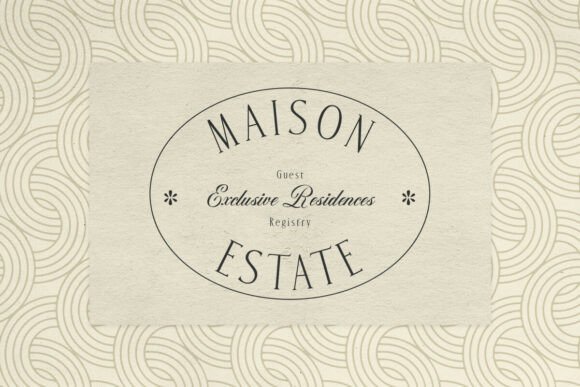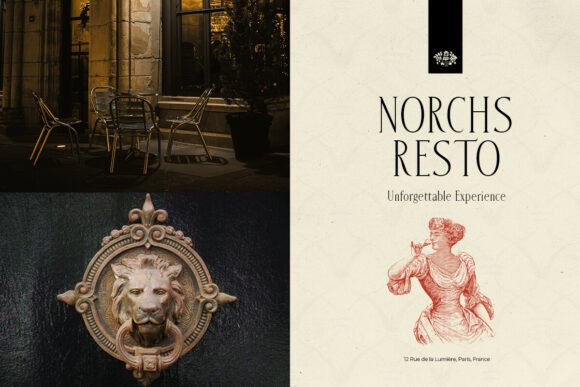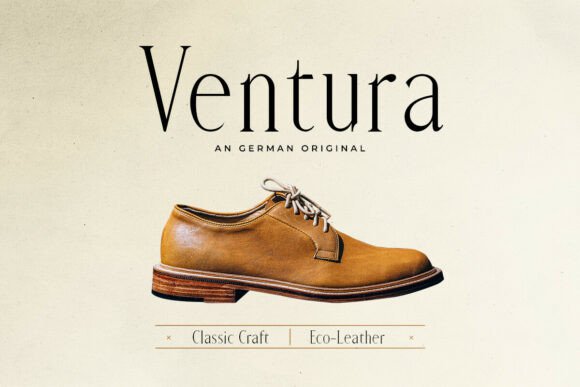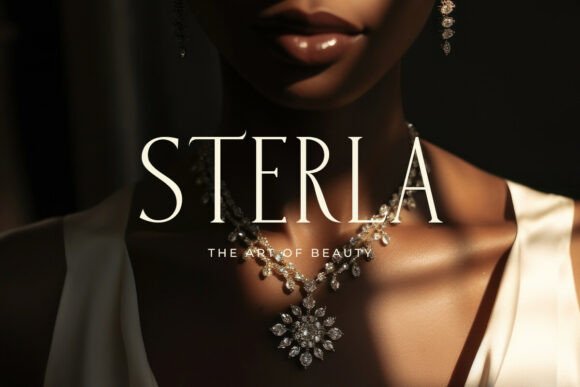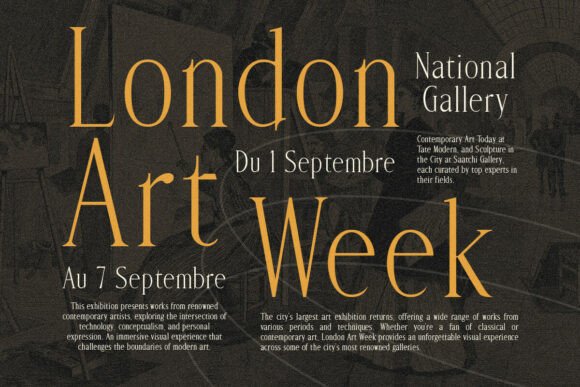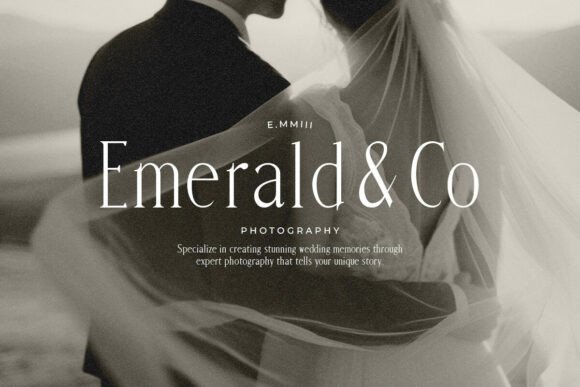
Introduction to Malimbu Font Font
Fonts play a crucial role in design, and the Malimbu Font font is a typeface that brings both character and versatility to any project. Whether you’re working on a branding project, a website, or a print design, the Malimbu Font font offers a unique style that can elevate your work.
Indulge in the harmonious fusion of classic charm and modern sophistication encapsulated in the polished serif typeface.
Meticulously fashioned to take luxury brandings up a notch, it features streamlined strokes and unobtrusive bends This font seamlessly weaves an aura of class into digital narratives, making it the perfect fit for ventures that require a balance between seriousness and subtlety.
The Malimbu Font font is more than just a typeface – it’s a design tool that helps you communicate your message with style and clarity. Its unique character set and versatile design make it suitable for a wide range of applications, from elegant invitations to bold headlines.
With its carefully crafted letterforms and balanced proportions, the Malimbu Font font ensures readability and visual appeal across all mediums.
What makes Malimbu Font font special?
The Malimbu Font font stands out with its unique design, exceptional readability, and versatility across various design applications.